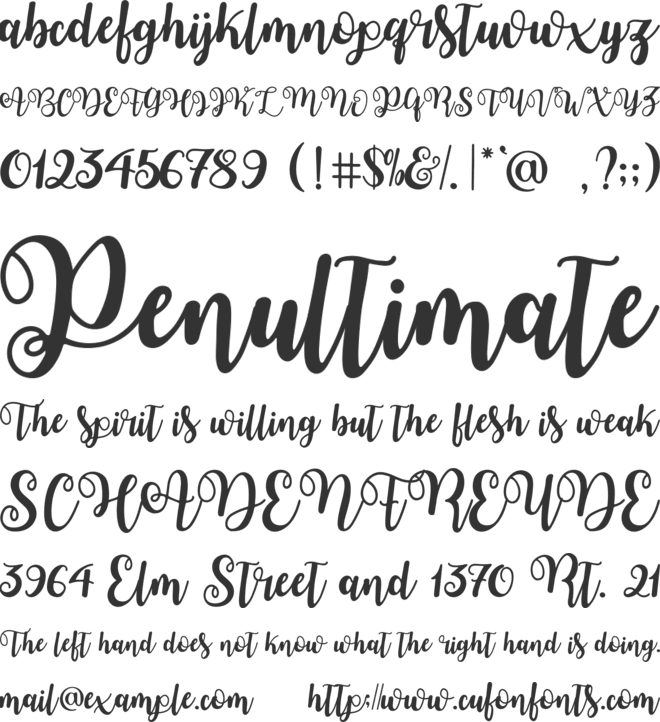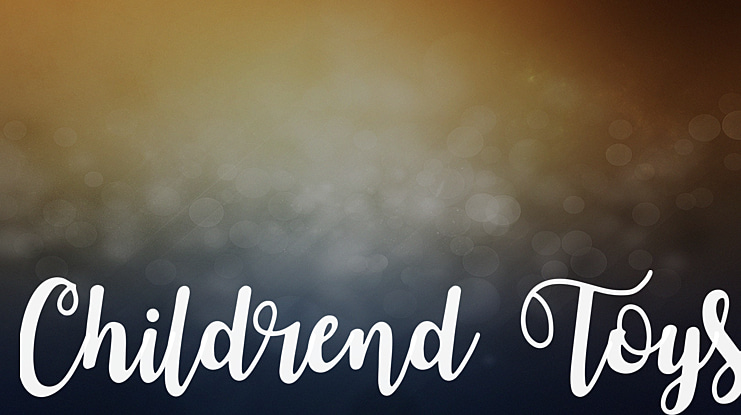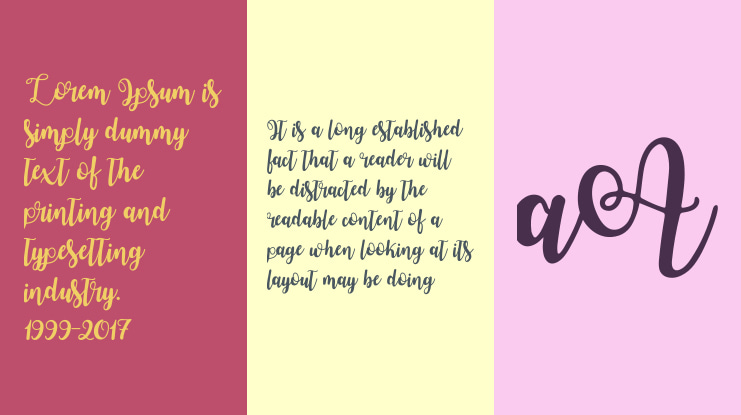
Childrend Toys Font
Children’d Toys is a lovely and delicate script font that exudes elegance and class. This font was particularly crafted for those who need a beautiful and refreshing look to their designs.